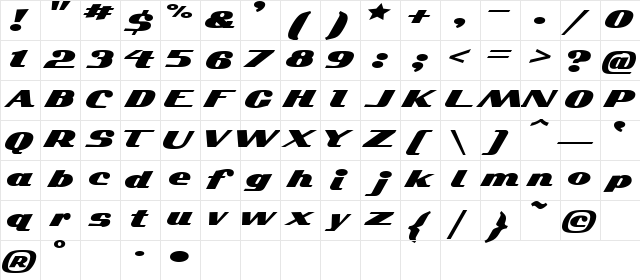
Kelvinized Normal
Design Context for Kelvinized Typeface
Kelvinized is a composed and adaptable typeface that performs quietly and consistently across a wide range of design contexts.